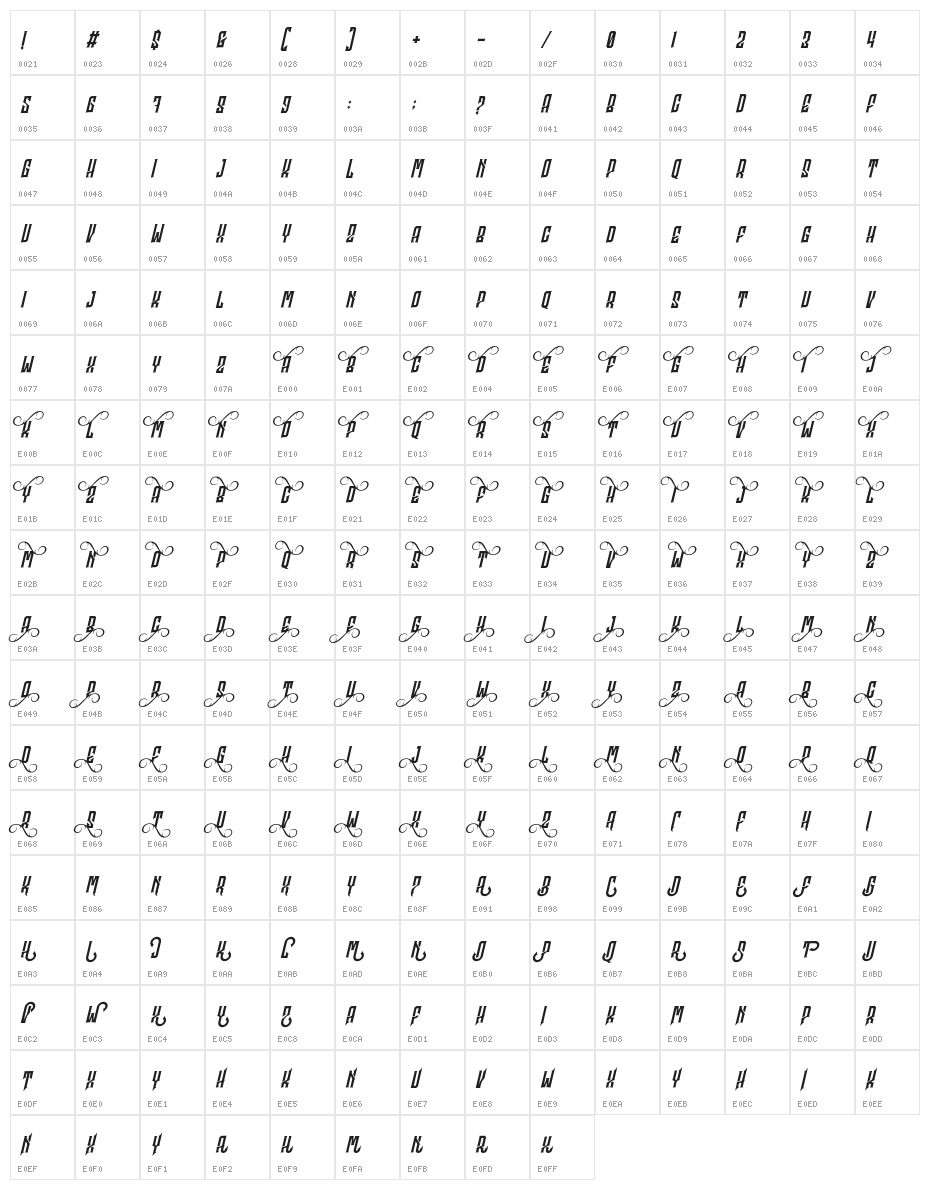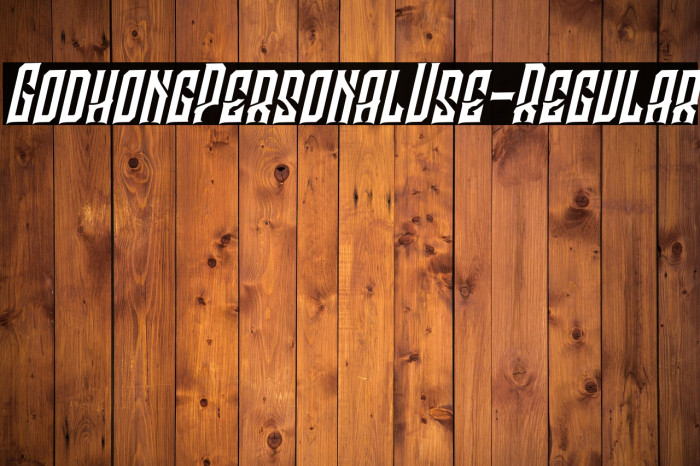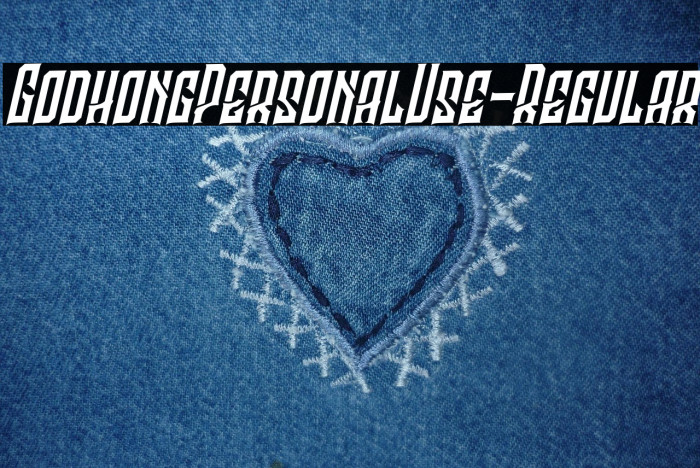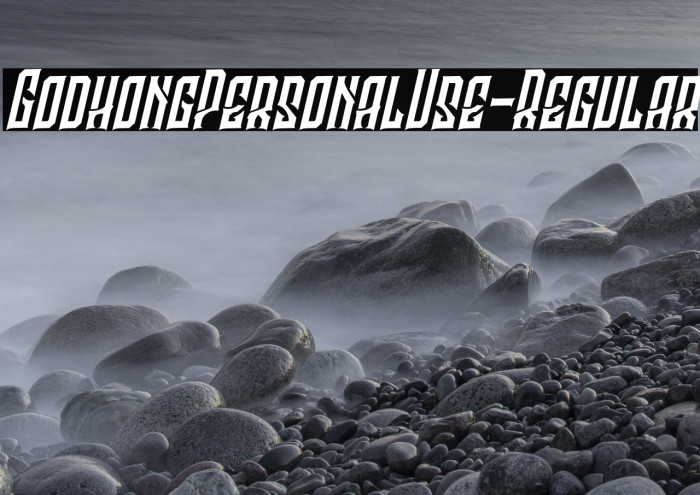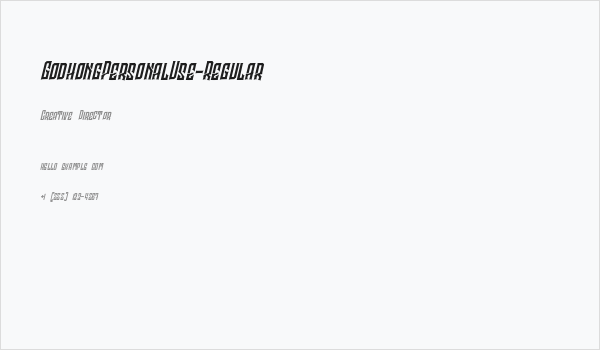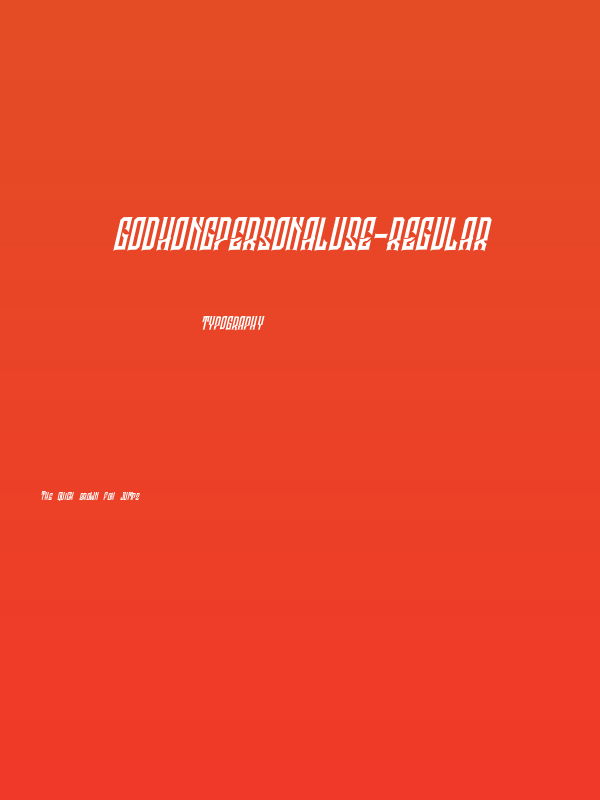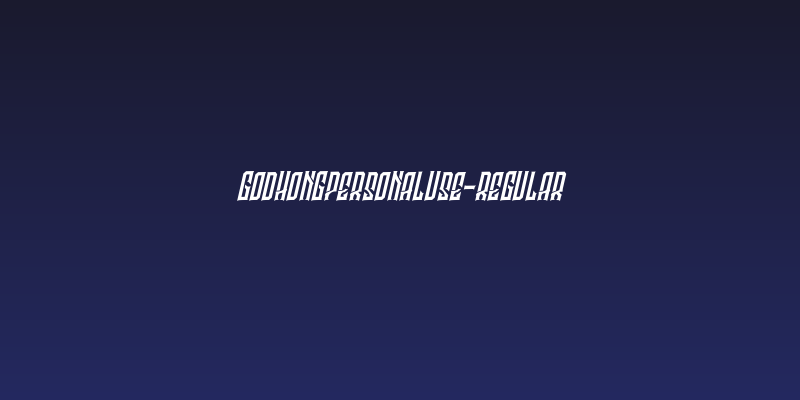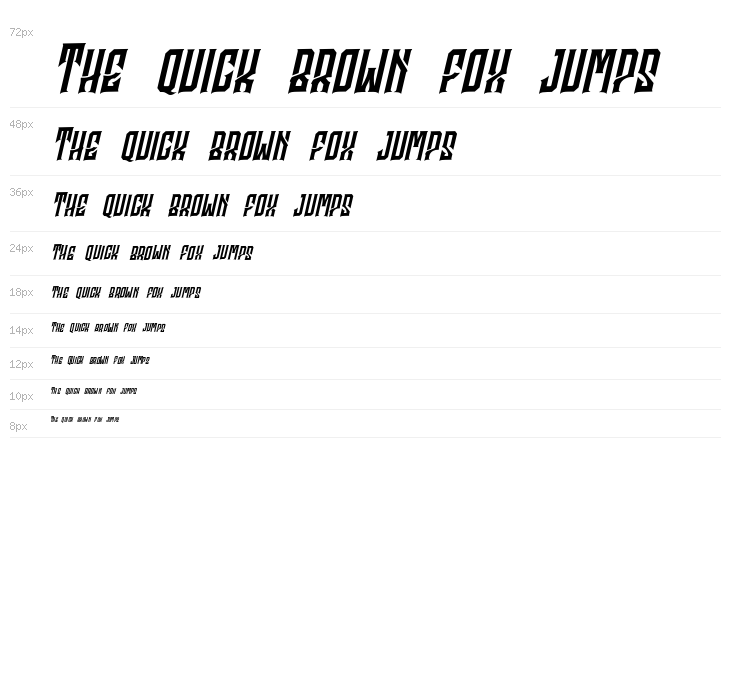
GodhongPersonalUse-Regular Font
GodhongPersonalUse-Regular Description
This font features a bold and dynamic design with sharp, angular edges and a strong geometric influence. The characters are slightly slanted, giving a sense of movement and energy. The uppercase letters are particularly striking, with a unique style that combines both modern and retro elements. The numbers and special characters maintain the same bold aesthetic, ensuring consistency throughout. This font is ideal for projects that require a strong visual impact and a sense of modernity.
| Proposed Projects | Ideal for branding, posters, headlines, and any design needing a bold, impactful typeface. |